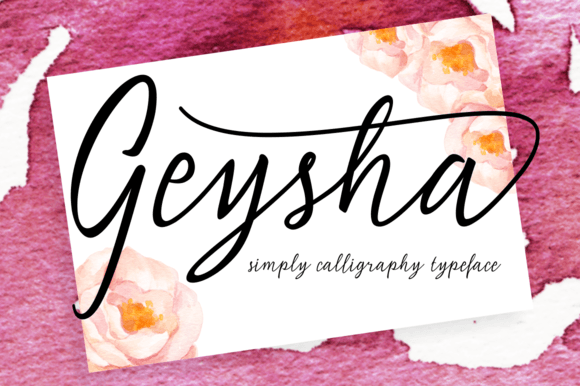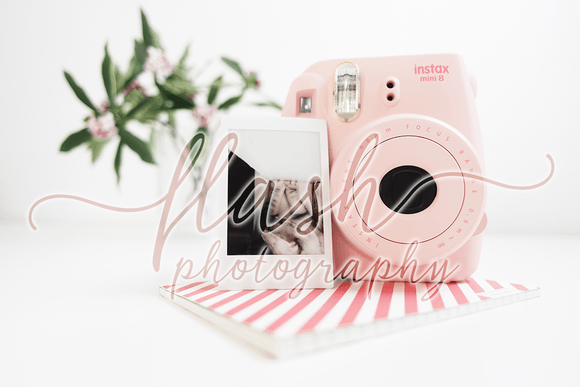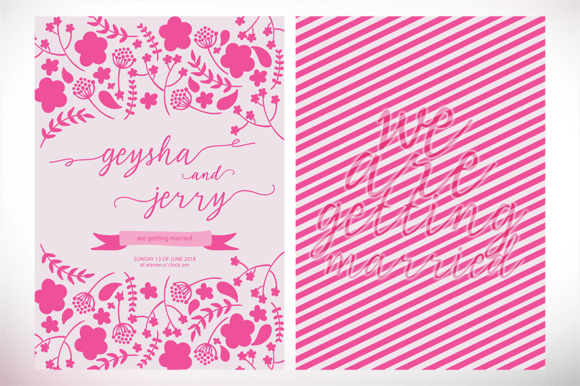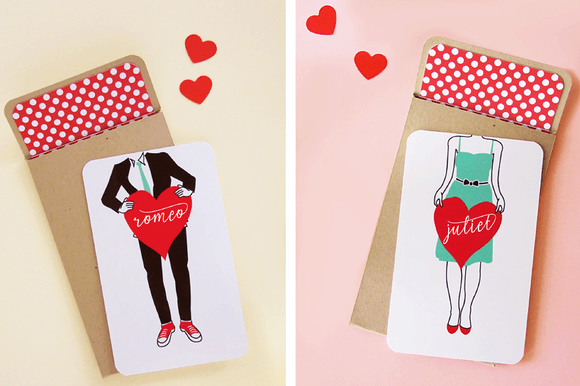
Geysha Font
About Geysha Font
Geysha is a beautiful, handwritten script with a ton of movement and style.  This unique and readable script looks great in fashion, editorials, or special event design projects.